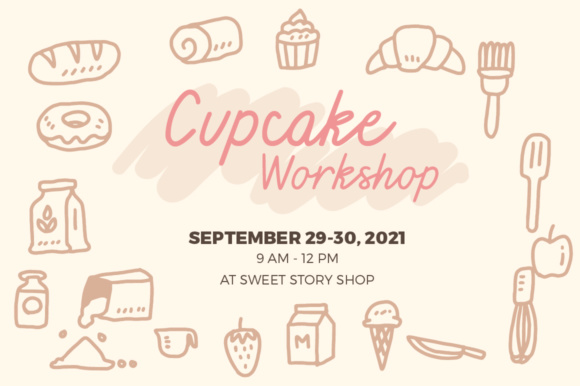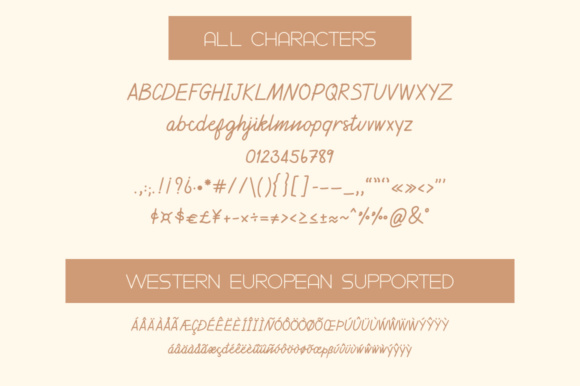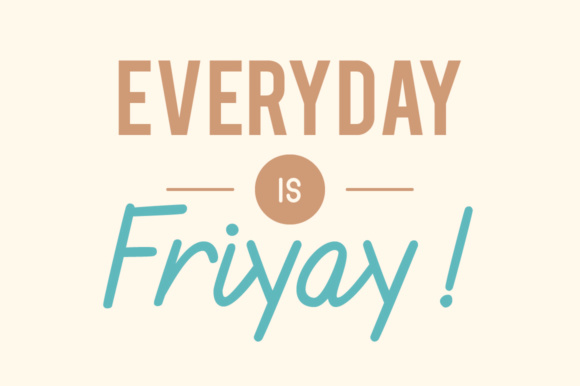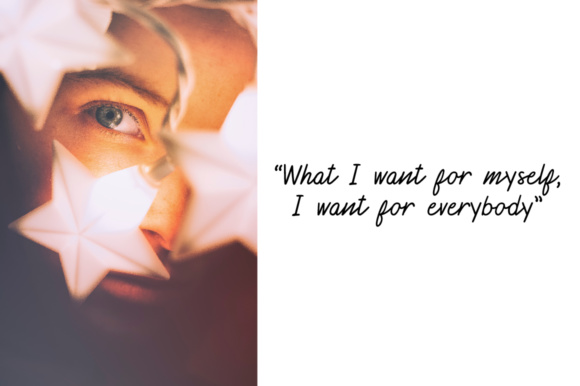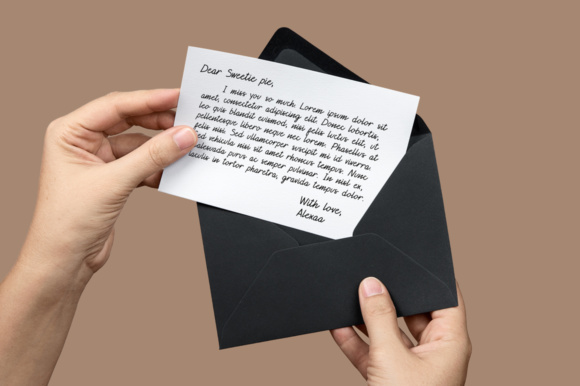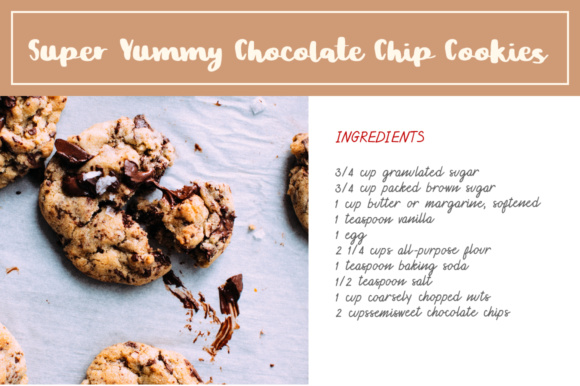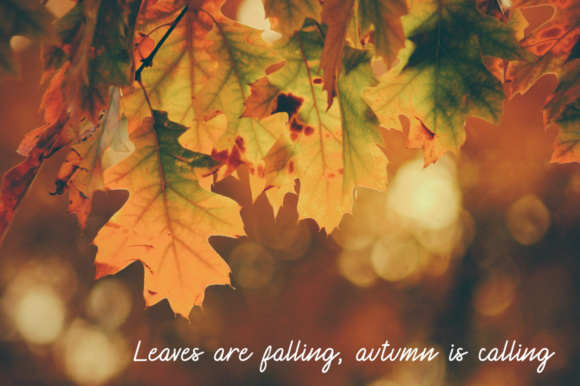
HomeScript FontsFriyay Font Script Fonts Friyay Font FacebookXPinterestWhatsApp Friyay Font Poster 2 Friyay Font Poster 3 Friyay Font Poster 4 Friyay Font Poster 5 Friyay Font Poster 6 Friyay Font Poster 7 Friyay Font Poster 8 Friyay Font Poster 9 About Friyay Font Friyay is a slant handwritten typeface. With its monoline strokes, it gives off a clean informal vibe. DOWNLOAD ON CREATIVE FABRICAThis font is sold and delivered by Creative Fabrica. Font Canyon may earn a commission if you buy through this link. People also explored Interactive Font Natasya Font Undersea Font Forest Font Bridget Font Wylna Font Homeschool Font Pickle Sans Larson Mix Font 312 0 TagsFriyay Font Previous articleDaesy Script FontNext articleSchool Rules Font LEAVE A REPLY Cancel reply Comment: Please enter your comment! Name:* Please enter your name here Email:* You have entered an incorrect email address! Please enter your email address here Website: Save my name, email, and website in this browser for the next time I comment. Personal Use Free Pompom Personal Use Free Read more about this font Color Personal Use Free Read more about this font Darla Personal Use Free Read more about this font Maxwell Personal Use Free Read more about this font BLOG 5 Fonts That Will Dominate Design Trends in 2026 5 Fonts for 2026 That Will Dominate Design Trends Typography plays a critical role in visual communication, and as we look ahead to 2026, it’s... Top 7 Google Fonts Alternatives for Faster and Privacy-Friendly Web Design (2025) To increase your work productivity, choose the most readable fonts. How to Install and Use Fonts on Windows, macOS, and Web Projects